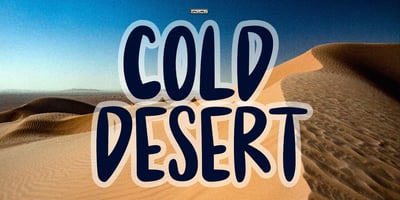
Cold Desert
Cold Desert font
Cold Desert Font Family was designed by Aldy Sidik and published by Epiclinez. Cold Desert contains 1 styles and family package options. Cold Desert is a fun and bold handwritten font. Carefully handcrafted to fit most of your crafty projects.